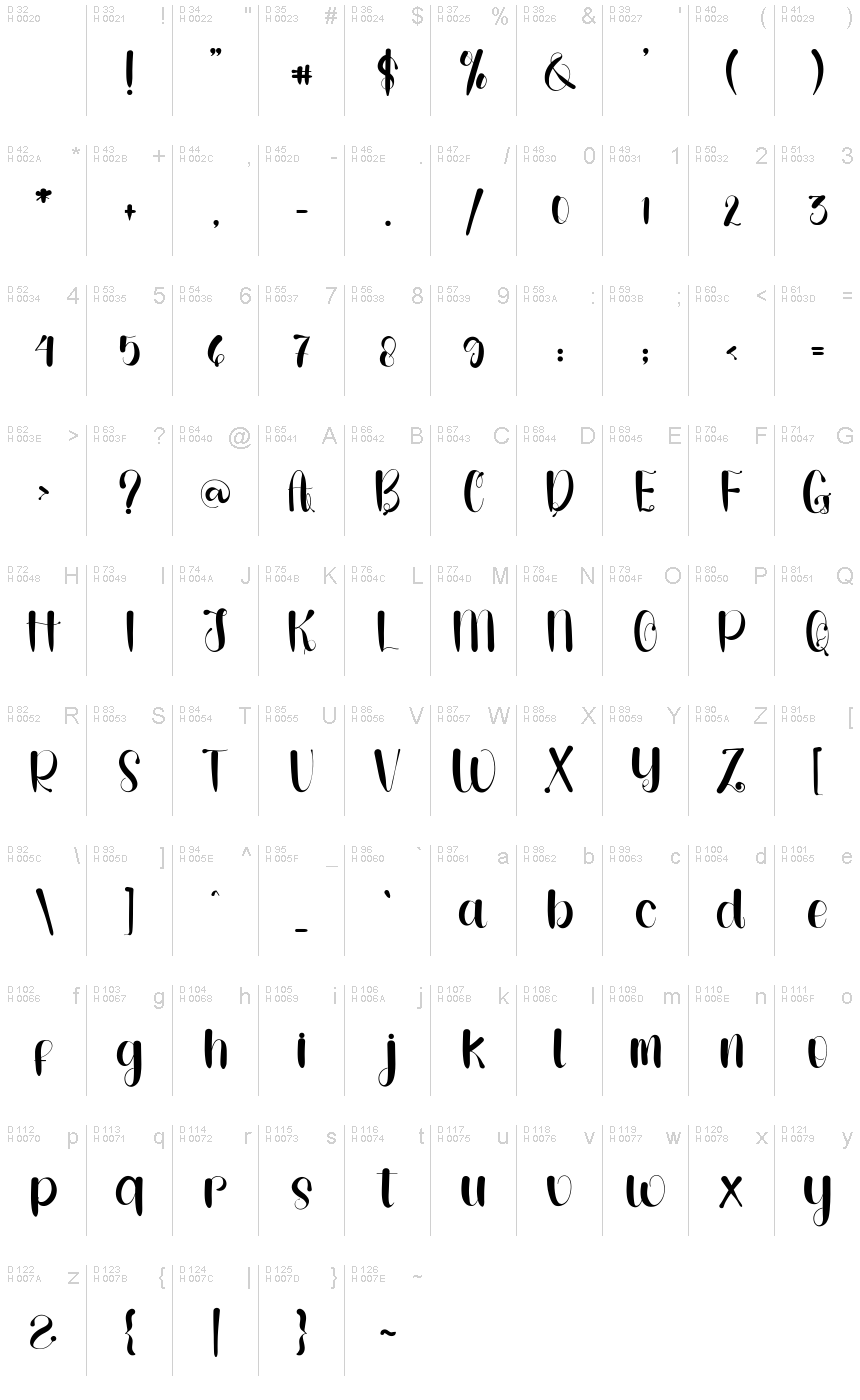
Halloween Peak Night
Halloween Peak Night, a smooth brush font created by FreshtypeINK, captivates with its haunting elegance. This typeface exudes an alluring blend of sophistication and whimsy, seamlessly transitioning between the graceful and the ghoulish. The sweeping, organic strokes evoke the ebb and flow of a midnight breeze, while the subtle textural nuances suggest the weathered charm of a centuries-old tome.
This font's versatility shines through, making it a versatile choice for a wide range of design projects. From spooky event invitations and horror-themed book covers to enchanting product labels and mystical brand identities, Halloween Peak Night effortlessly sets the tone, evoking a sense of mystery and intrigue that lingers long after the first impression.